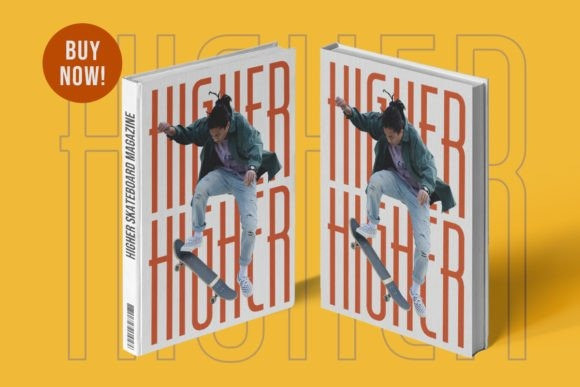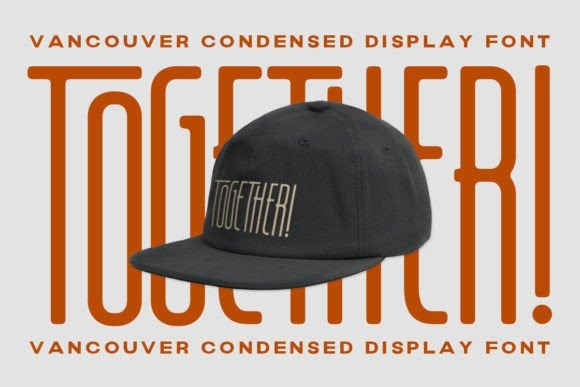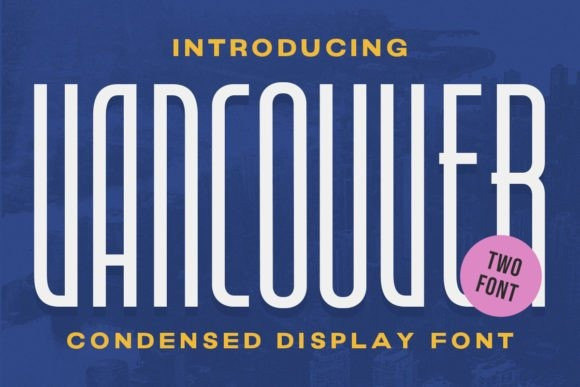
Vancouver Font
Vancouver Font – Condensed Display. This font embodies the essence of modernity, allowing your words to command attention on every page. Its condensed form and contemporary design make a striking impression, while maintaining readability and professionalism. Whether it’s fashion magazines, cutting-edge websites, or sleek branding materials, Vancouver confidently stands out, commanding attention with its modern editorial flair. Let your creativity soar with a font that embodies the essence of modernity and sets your designs apart from the rest.